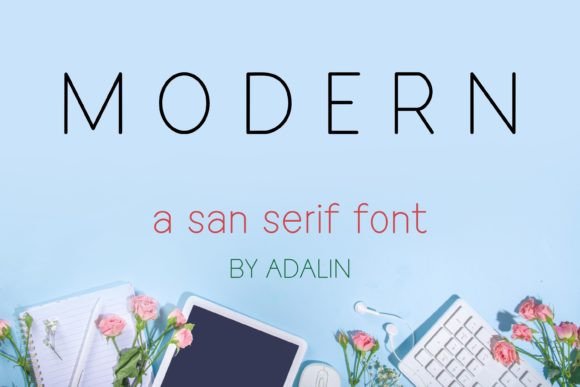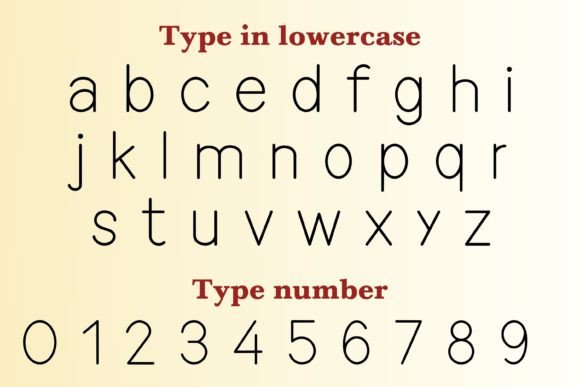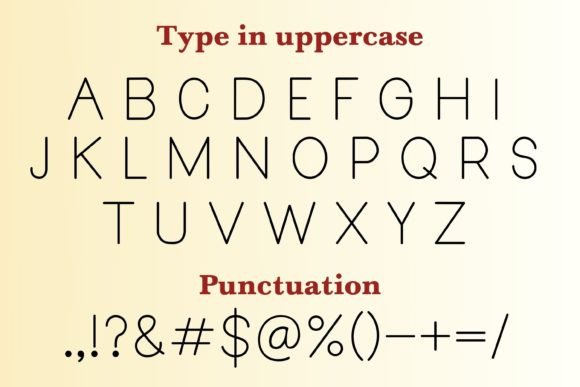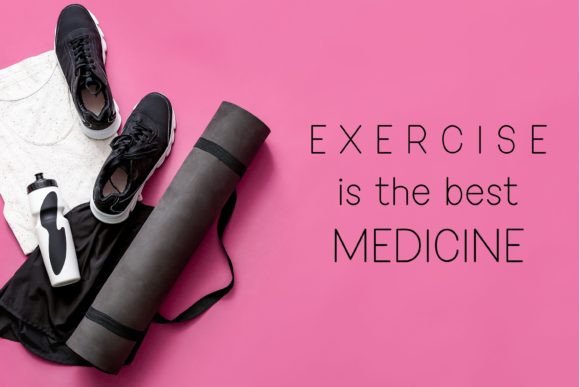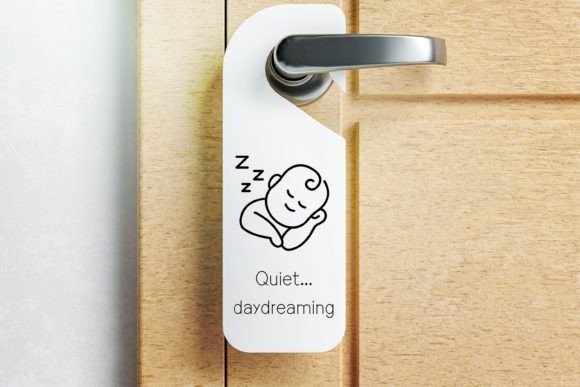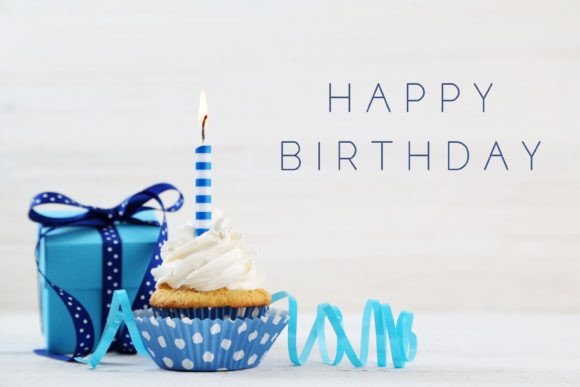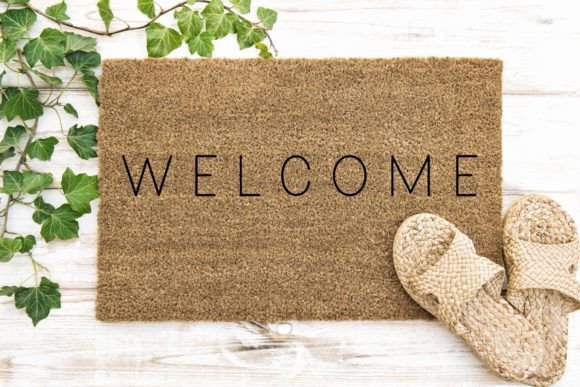
Modern Font
Modern San Serif is a sans serif font that can be used for any product including food products, beverages, office equipment, construction, clothes, shoes, and so much more.